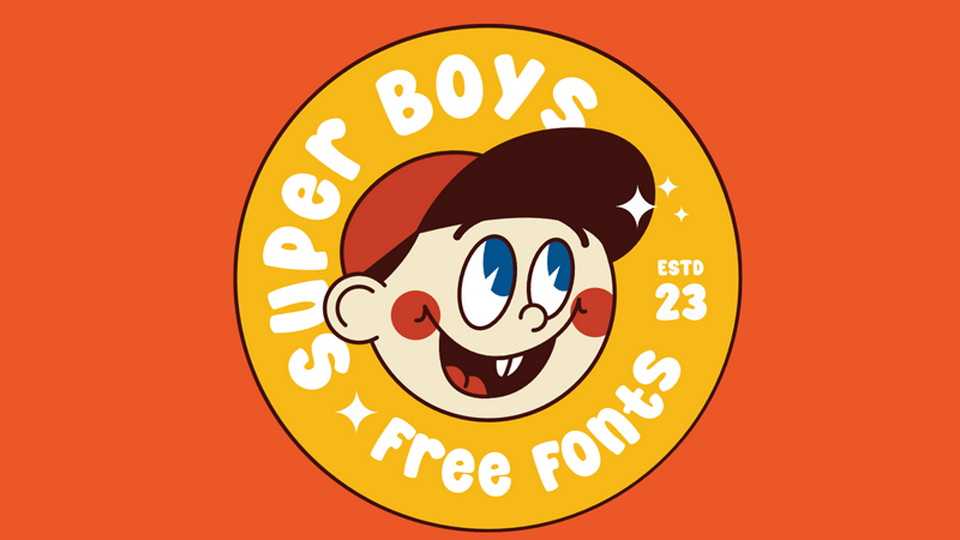
Download Super Boys font, a cheerful and fun cartoon typeface that will transport you to a world of delightful storytelling and animated adventures. Super Boys font thrives on versatility, making it suitable for a wide range of applications.